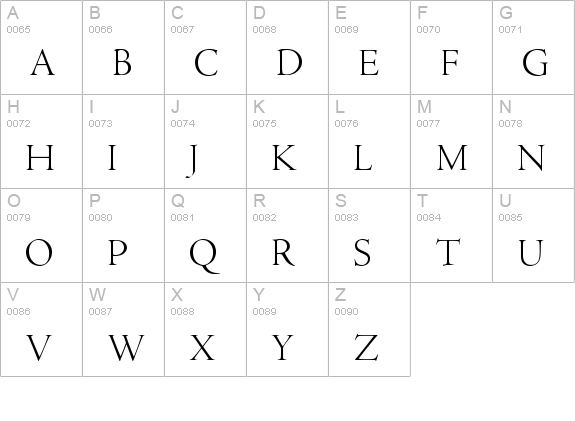
Adobe Jenson Pro Light Display is a refined, elegant variant in the Adobe typeface family \xE2\x80\x94 well suited to elegant body text, refined sub-headings, and luxury branding.
Adobe Jenson Pro Light Display font is an exquisite and elegant typeface that exudes sophistication and grace. Its delicate strokes and subtle curves make it perfect for conveying a sense of refinement and professionalism in any design project. The light weight of this font adds a touch of airiness and modernity, making it versatile for various applications such as branding, editorial design, and packaging. And the best part is, Adobe Jenson Pro Light Display font is available for free download at FontsMarket.com. This means you can easily access this premium font and enhance your projects with its timeless beauty without any cost. Don't miss out on this opportunity to elevate your designs with the timeless charm of Adobe Jenson Pro Light Display font.